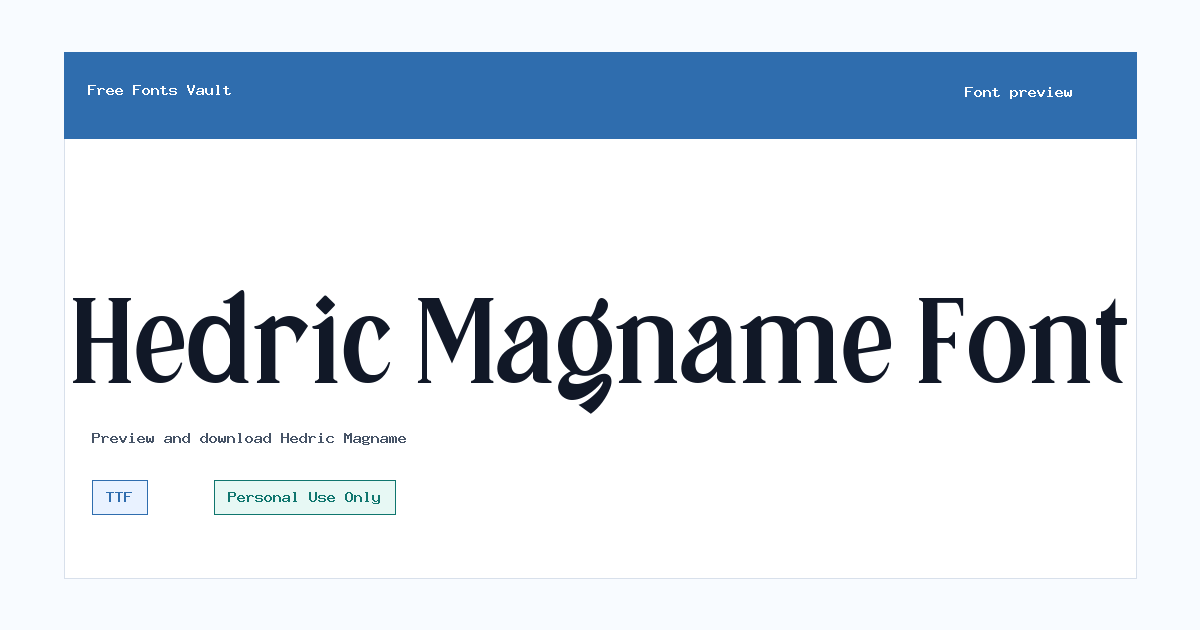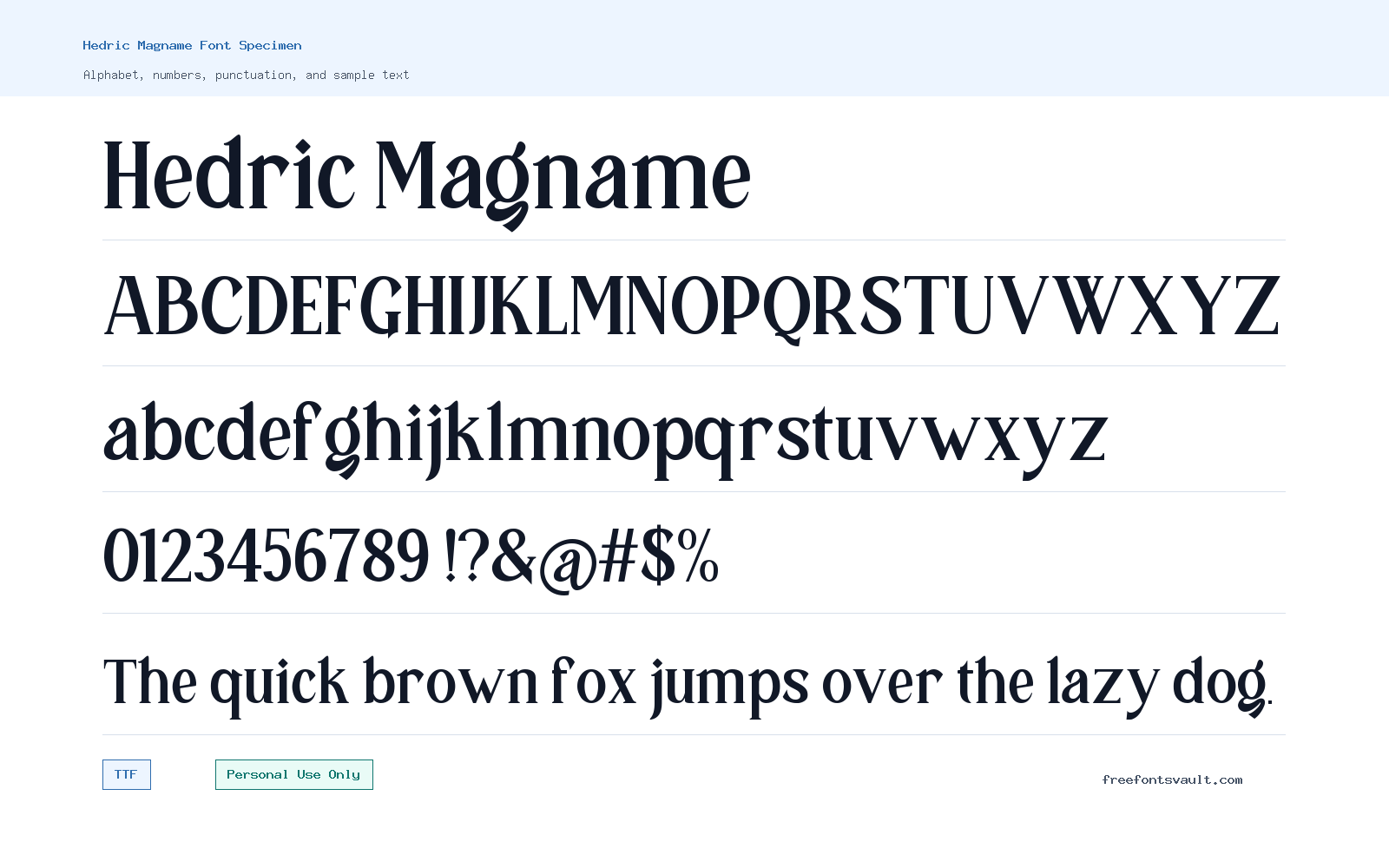
Hedric Magname
- Designer AZSType
- Foundry AZSType
Hedric Magname is a serif font from AZSType with a regular TTF style for personal-use design work. It is best approached as a display or short-text font: test your own words in the preview first, then download it only if the license fits your project.
About Hedric Magname Font
Hedric Magname has the kind of serif structure that works well when you want text to feel more composed than a plain sans serif. Because the download contains a regular-weight TTF file, it is a practical choice for visitors who want to try the font quickly in common design apps, mockups, and preview tools. Use it for titles, nameplates, posters, quote graphics, invitations, social images, or other short pieces of text where the letter shapes can be seen clearly.
For best results, start by testing the exact words you plan to use. Check uppercase and lowercase letters, spacing between difficult pairs, numbers, punctuation, and any accented characters you need. If you are designing a longer layout, pair Hedric Magname with a quiet sans serif or a simple book-style serif for body copy so the main message stays readable. Avoid making long paragraphs too small, especially on mobile screens, because decorative serif details can lose clarity at reduced sizes.
- Suitable for short display text, headings, and personal design previews
- Works best when tested with the exact wording, spacing, and size needed for the design
- Personal posters, quote graphics, and social media designs
- Invitation titles, name cards, and decorative headings
- Logo drafts, mood boards, and branding experiments for personal review
- Large text previews where serif details remain clear
The designer and foundry are listed as AZSType.
Who designed Hedric Magname?
AZSType is listed as the designer and foundry for Hedric Magname.
What is Hedric Magname best used for?
It is best for short text such as headings, poster titles, invitations, quote graphics, and personal design mockups. Test longer text carefully before using it in a full layout.
Should I use Hedric Magname for body text?
Use caution with long paragraphs. A simple companion font will usually be easier to read for body copy, while Hedric Magname can handle the title or accent text.